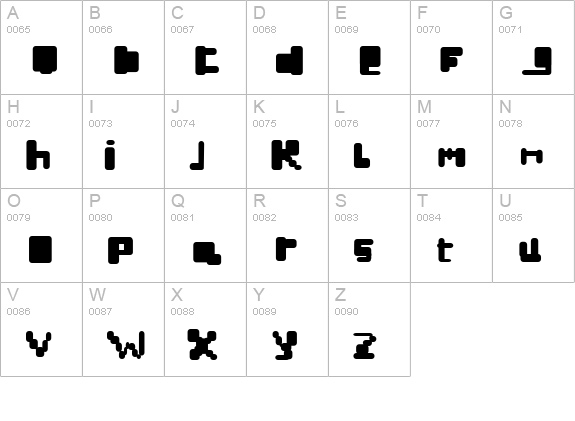
Sneflabb Normal Font Details
Sneflabb Normal is the standard, neutral variant in the Sneflabb typeface family \xE2\x80\x94 well suited to general body text, paragraphs, and standard typographic work.
The Sneflabb Normal font is a stunning display of creativity and uniqueness. With its quirky and playful design, it is perfect for adding a touch of whimsy to any project. The letters are beautifully crafted, with gentle curves and well-balanced proportions. This font is incredibly versatile and can be used for a variety of purposes, from branding and logos to invitations and social media graphics. Its bold and eye-catching appearance will surely make your designs stand out from the crowd. One of the best things about Sneflabb Normal font is that it is free! Yes, you heard that right. This amazing font is freely available to download at FontsMarket.com. You can easily access it and start using it in your projects without any cost. It's a fantastic opportunity to enhance your creative endeavors without breaking the bank. Whether you're a professional designer or a hobbyist, Sneflabb Normal font is a must-have in your collection. Its unique and playful style will bring a sense of joy and excitement to your designs. So why wait? Head over to FontsMarket.com and grab this font for free today!